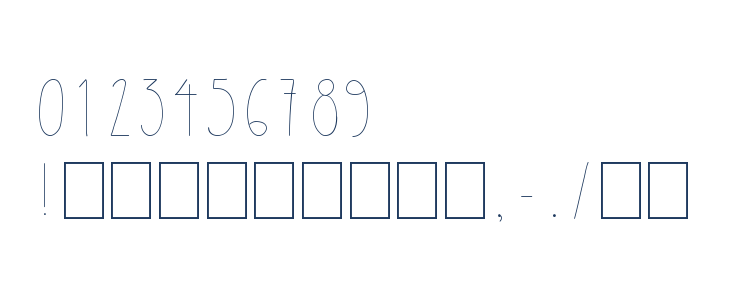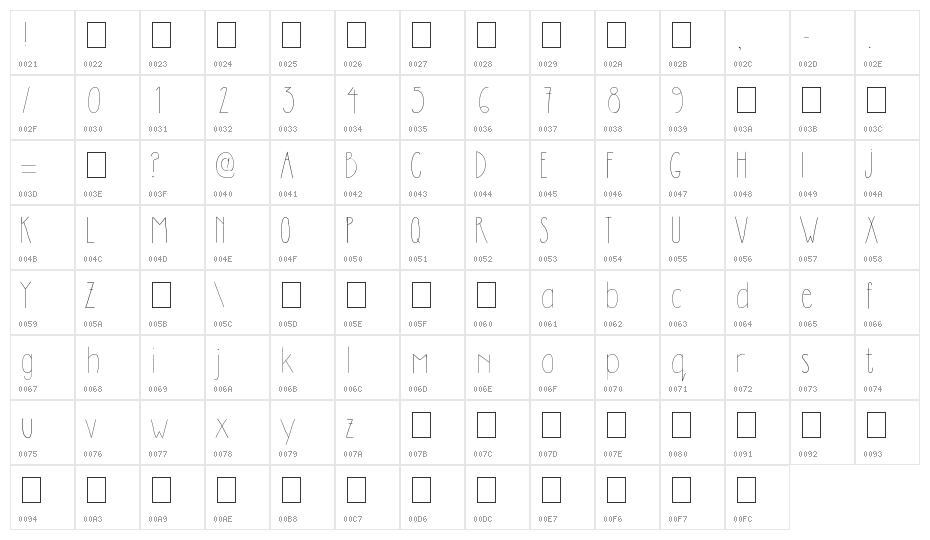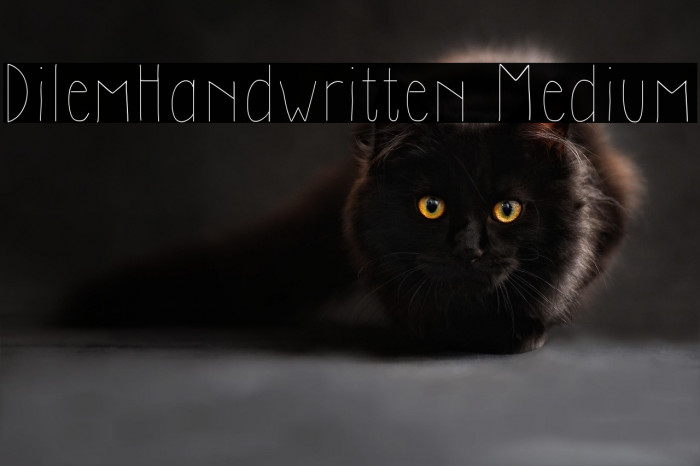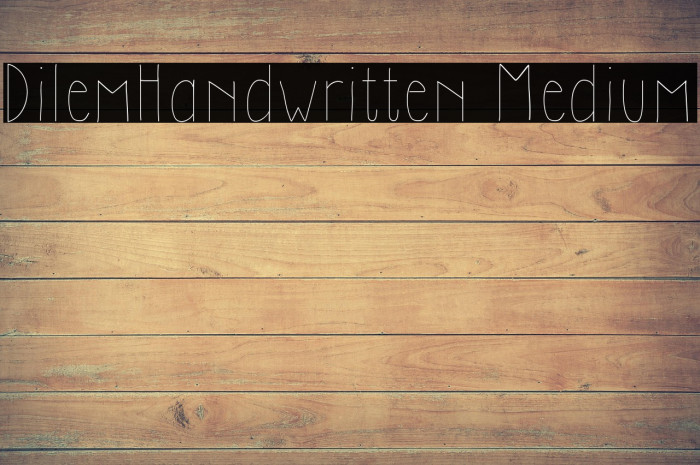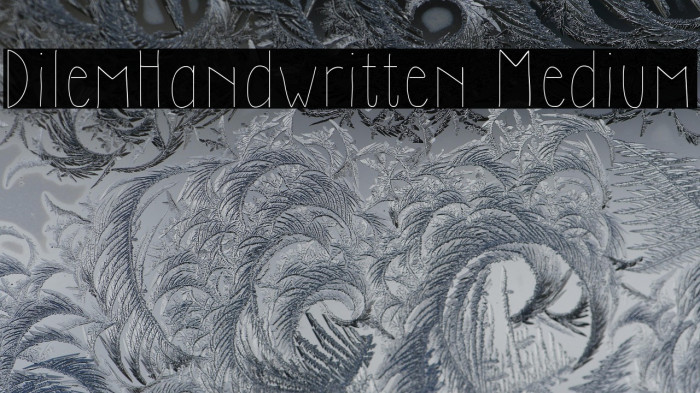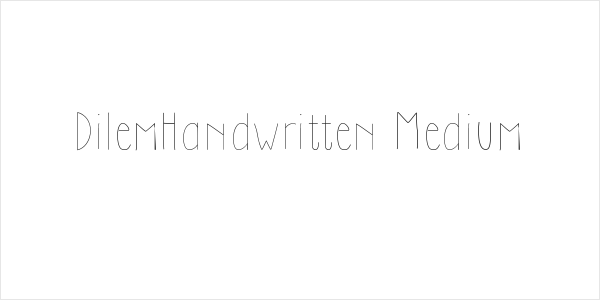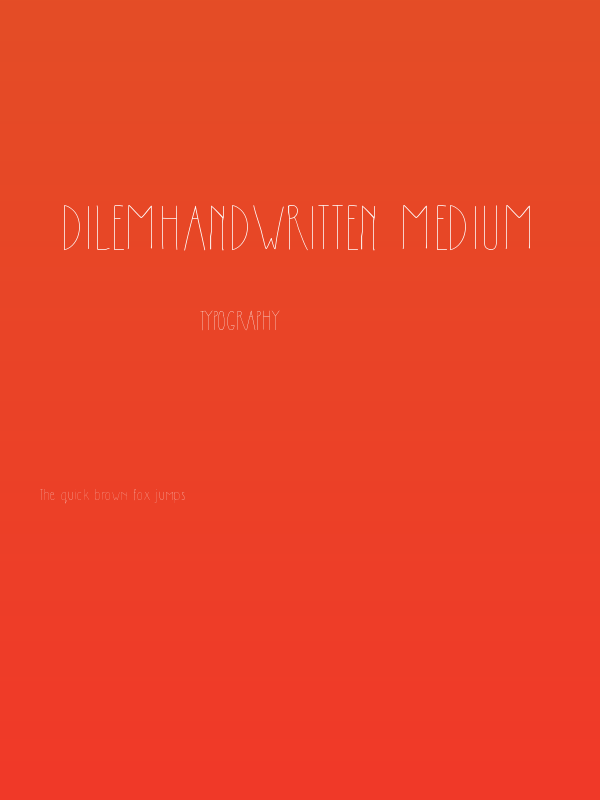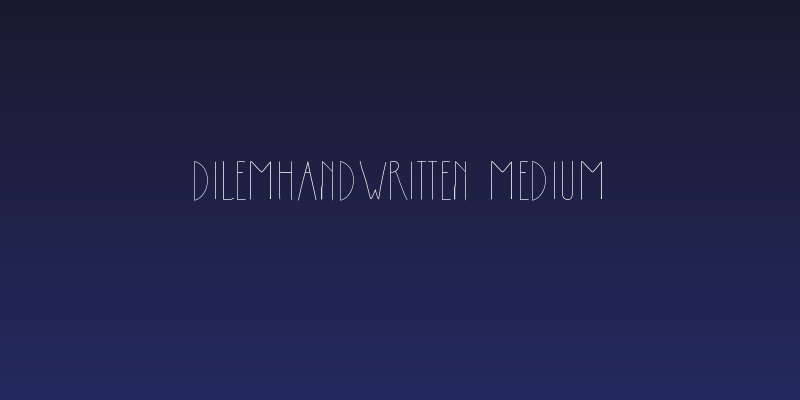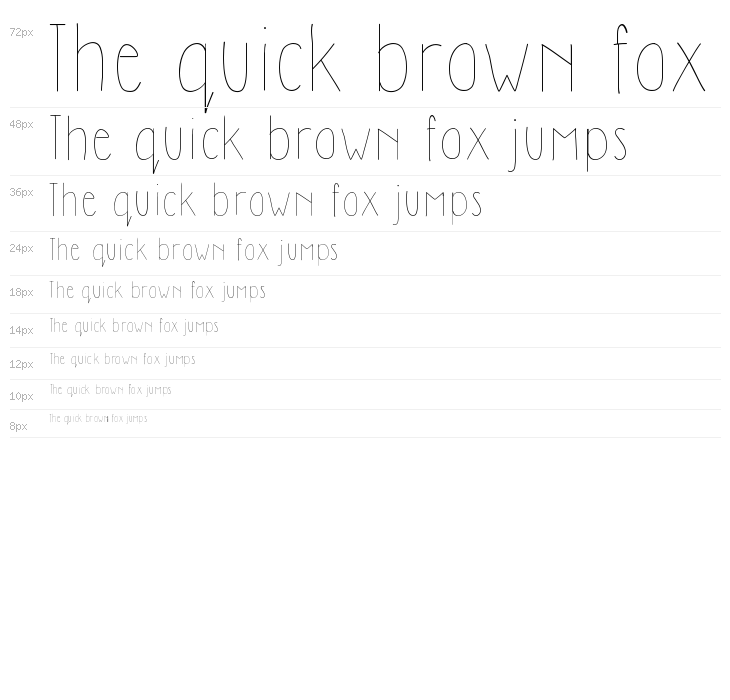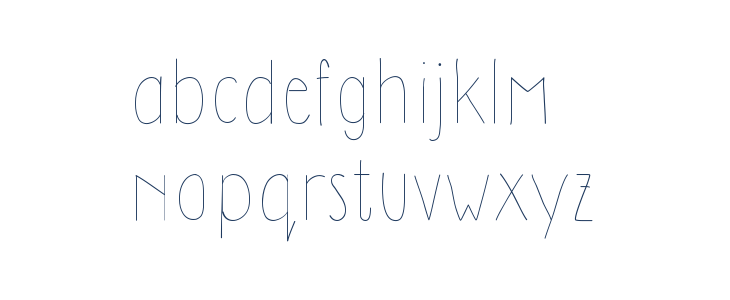
DilemHandwritten Medium Font
DilemHandwritten Medium Description
This font features a delicate, handwritten style with a medium weight that gives it a personal and approachable feel. The characters are tall and slender, with a slight irregularity that adds to its charm and authenticity. The uppercase letters maintain a consistent height, while the lowercase letters have a playful, slightly whimsical appearance. The numbers are clear and legible, matching the overall aesthetic of the alphabet. The spacing between characters is normal, allowing for easy readability. This font is perfect for projects that require a personal touch, such as invitations, greeting cards, or creative branding.
| Use Case | Invitations, Greeting cards, Creative branding |
| Proposed Projects | Ideal for invitations, greeting cards, personal branding, and creative projects. |